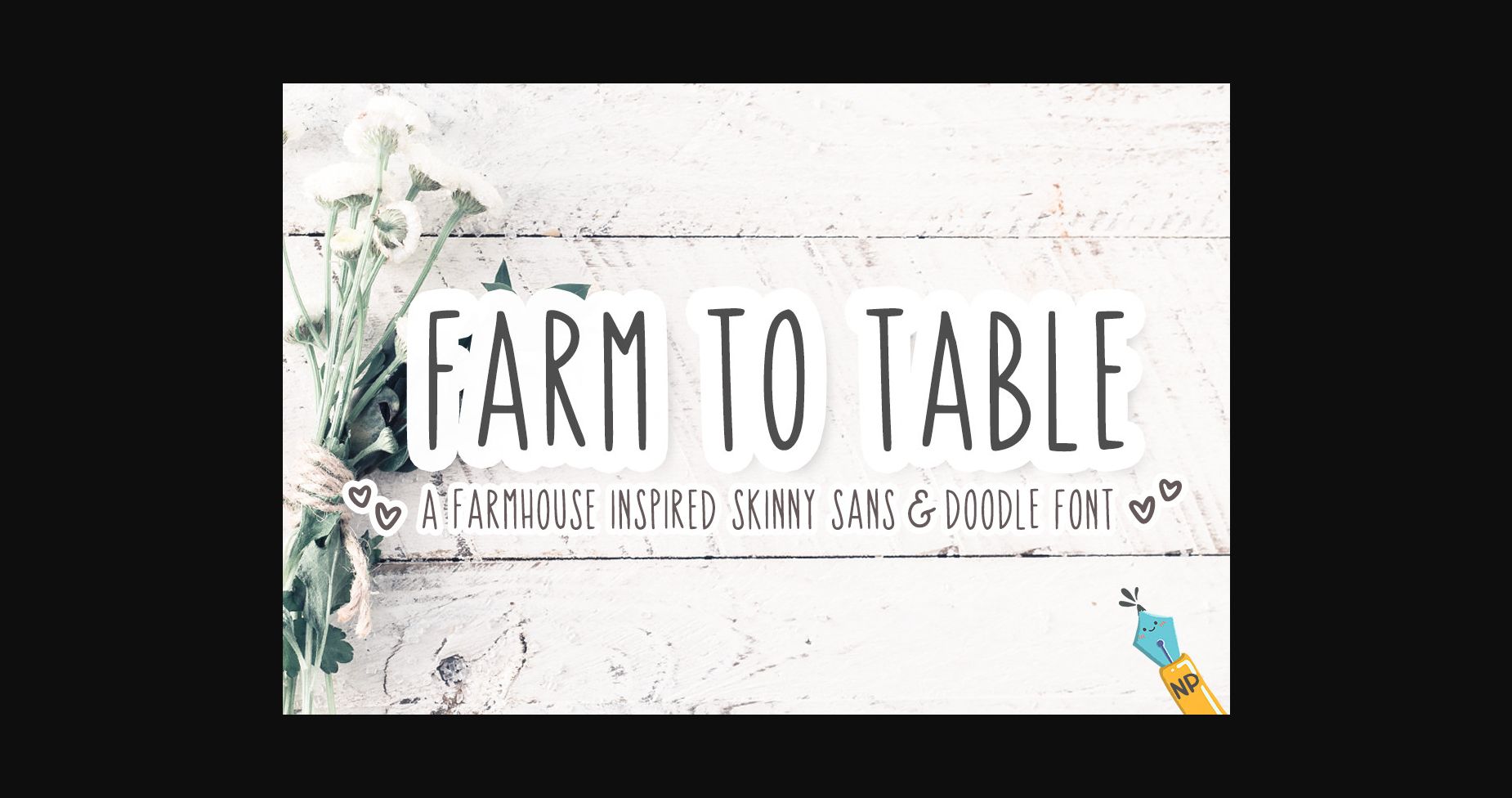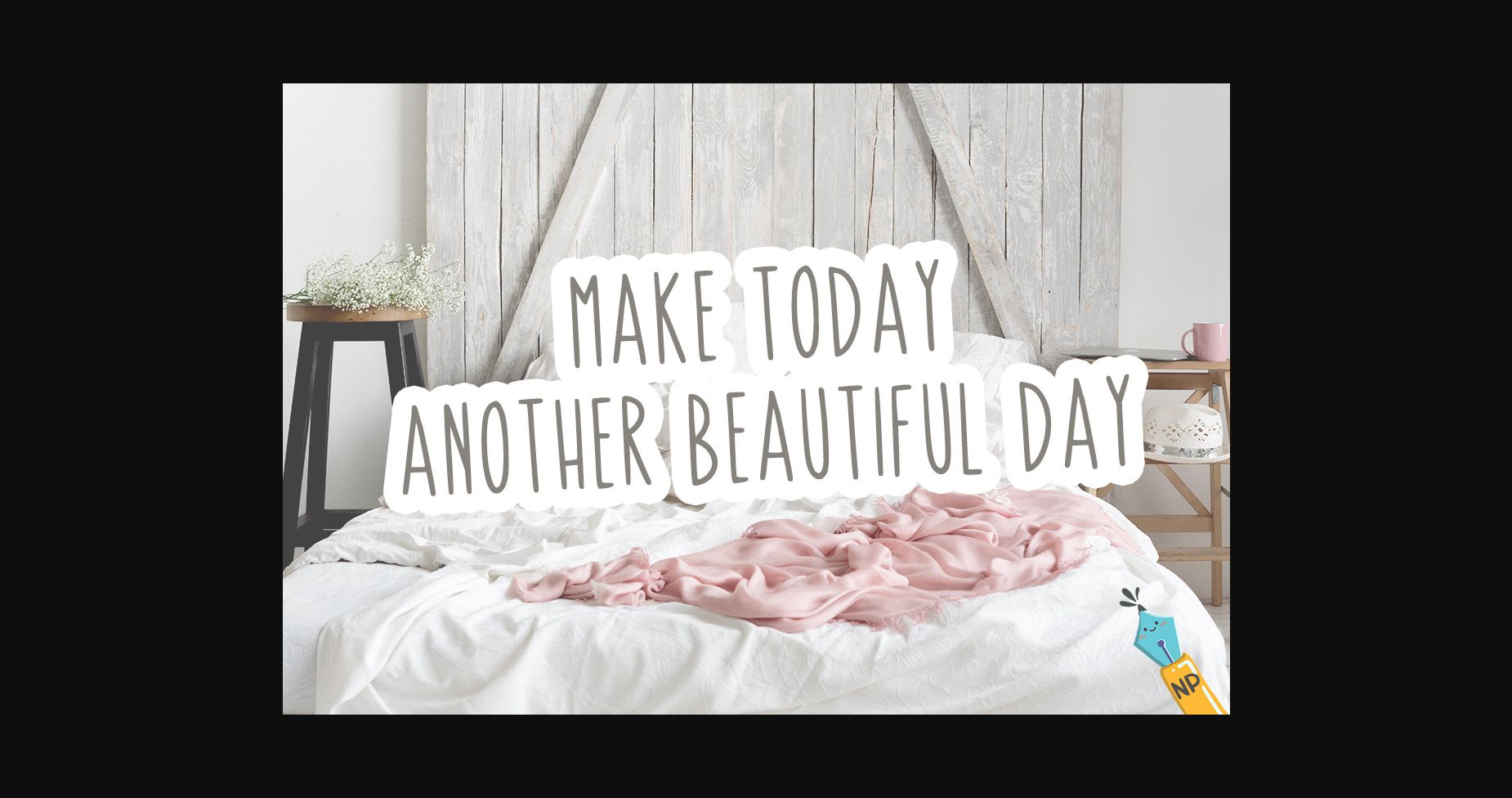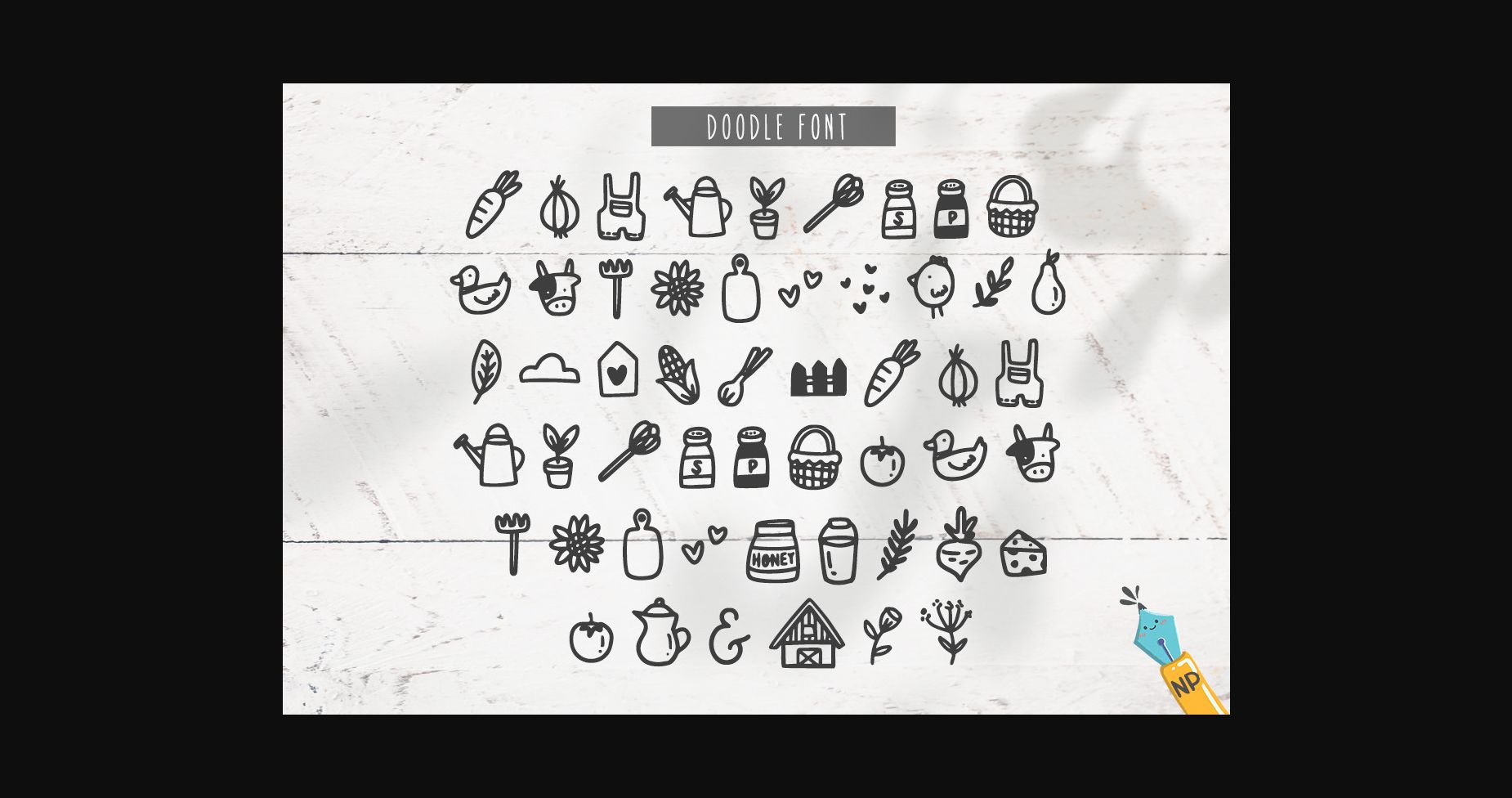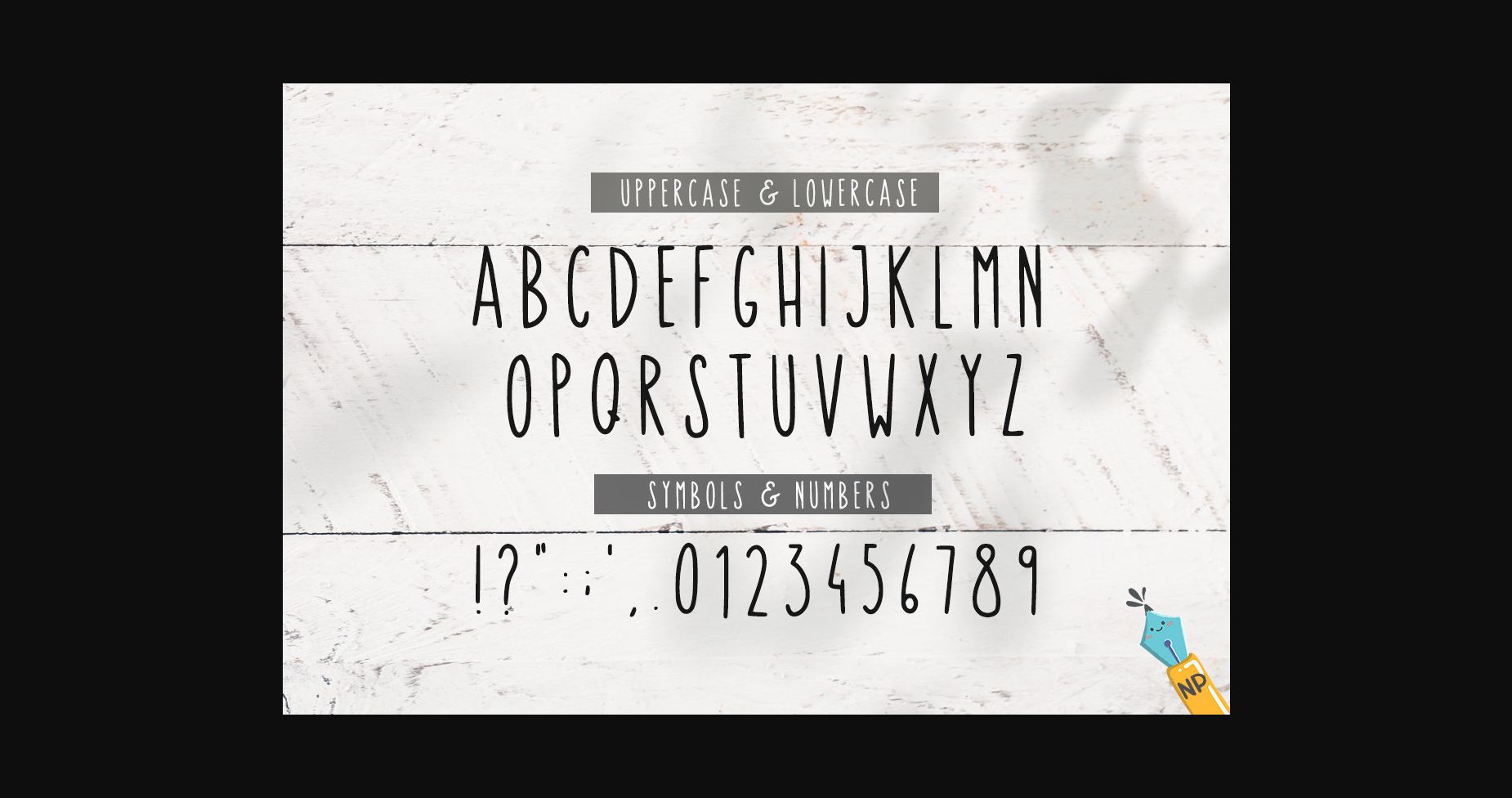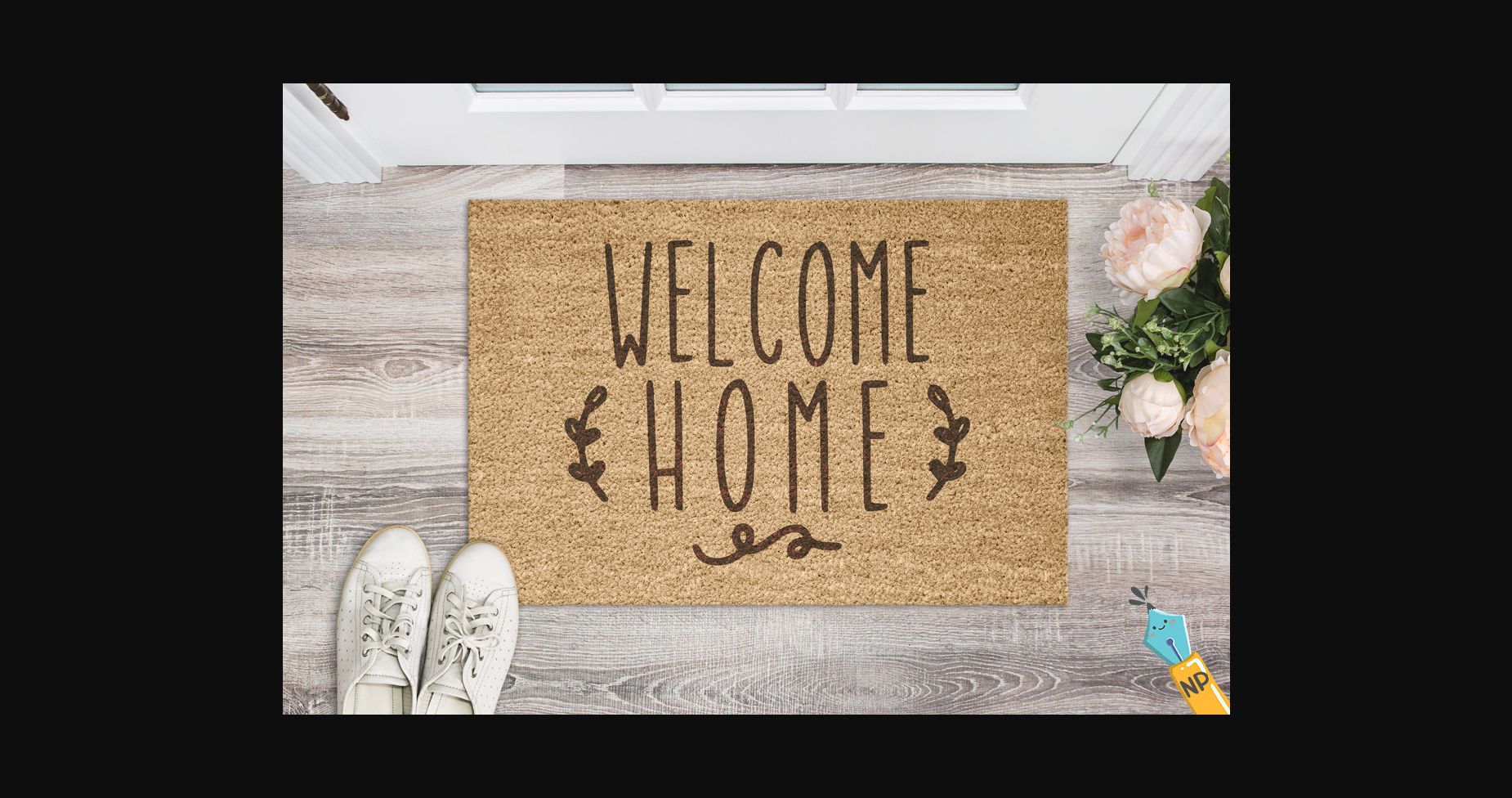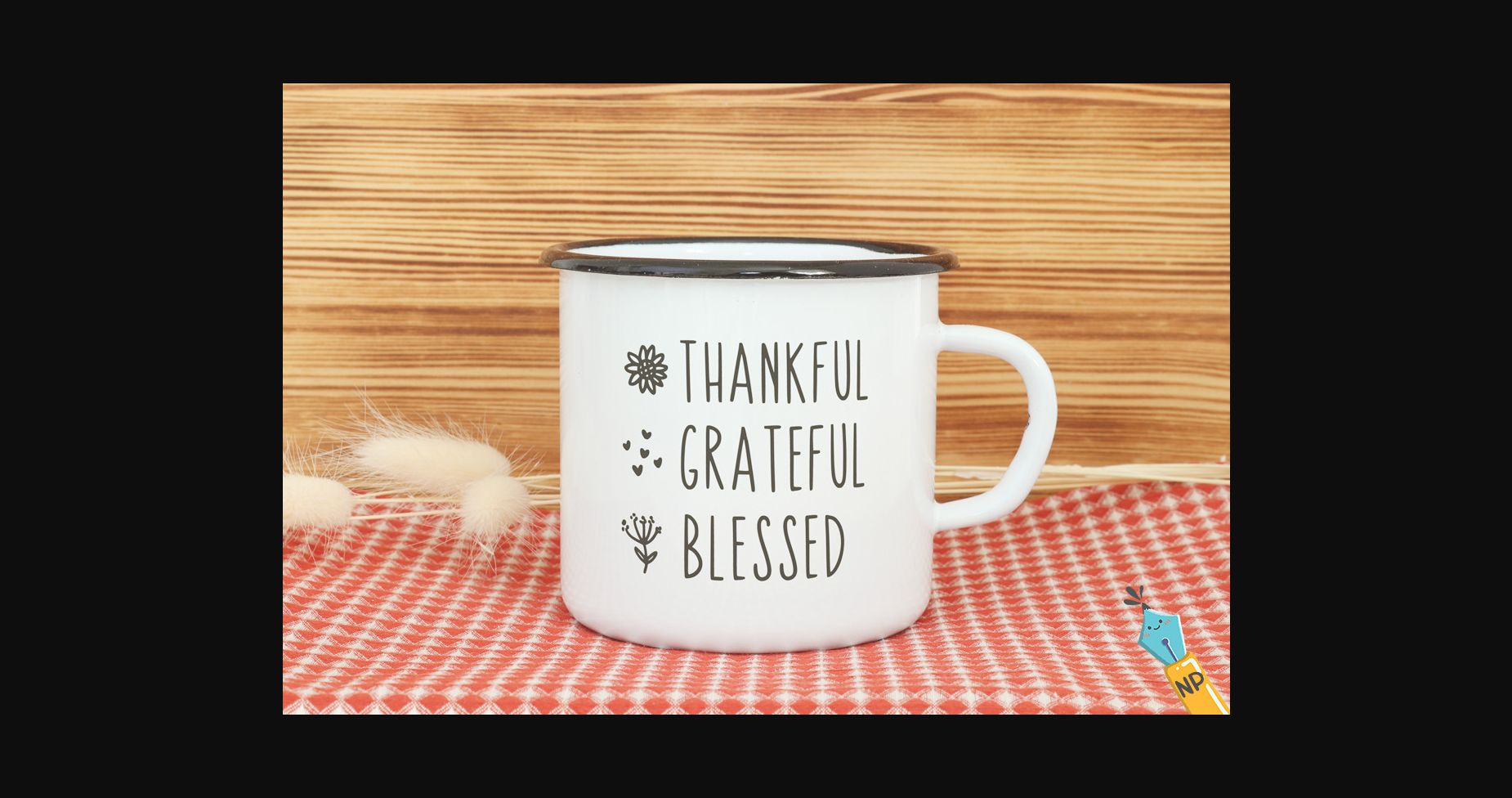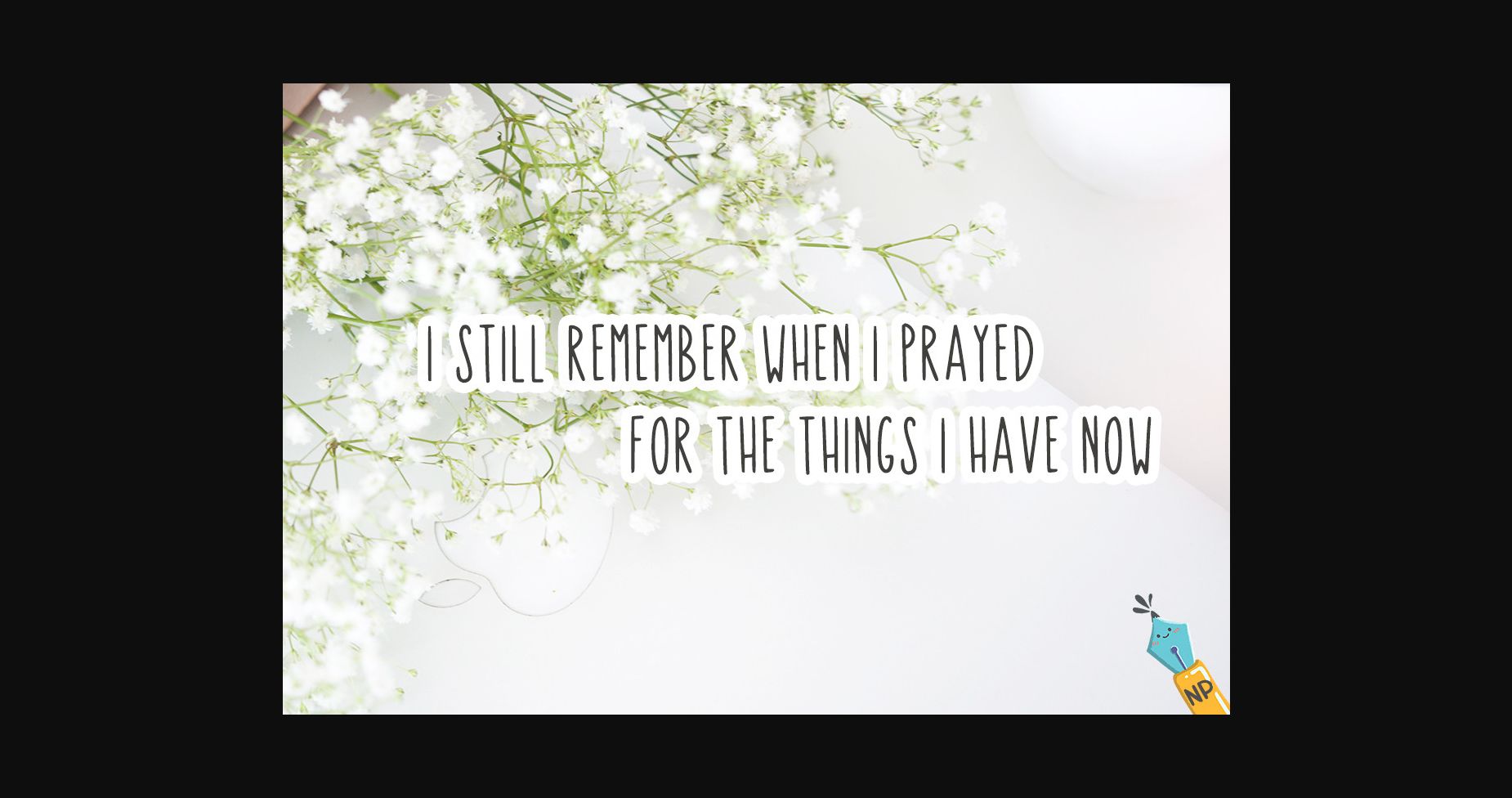
Farm to table is a sweet duo font (sans serif and dingbats). It is incredibly versatile and it will add a modern and rustic look to a variety of crafts, from vinyl stickers to labels, t-shirts, and more!